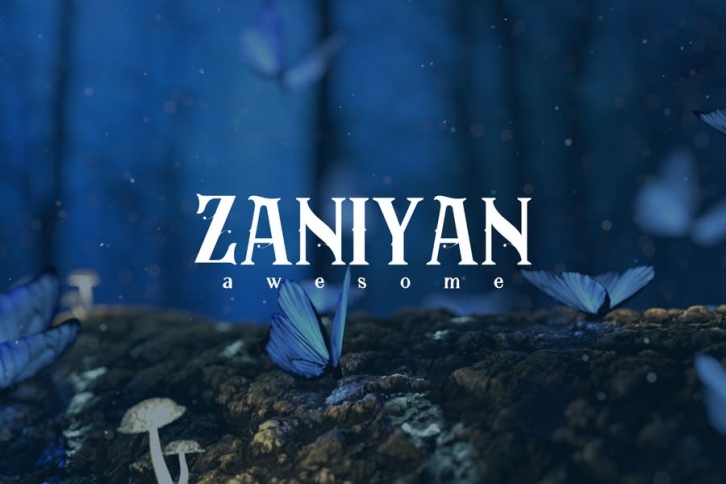
Introducing Zaniyan, an elegant, luxury, and beauty sans serif font. Its unique and lovely feel.
So perfect for you who needs a typeface for logo designs, magazine, social media, brochure, and many more.